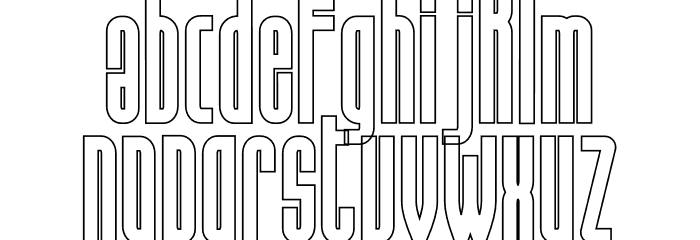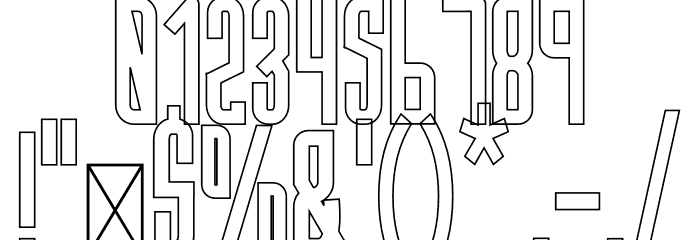
Hanca Outline Font
This font features a unique outline style that gives it a modern and artistic appearance. The characters are tall and narrow, with a consistent stroke width that creates a cohesive look across all letters and numbers. The uppercase and lowercase letters maintain a uniform height, contributing to a structured and geometric feel. The numerals and special characters are designed to match the overall aesthetic, ensuring a seamless integration in any design project. The font's outline nature makes it ideal for creating eye-catching headlines and titles, where the focus is on the shape and form of the letters rather than filled-in text.
A modern, outline-style font with tall, narrow characters and consistent stroke width.
- Proposed Projects: Ideal for modern branding, posters, and digital artwork where a striking, outline effect is desired.